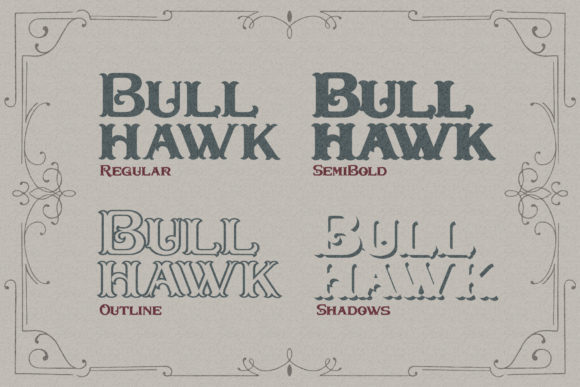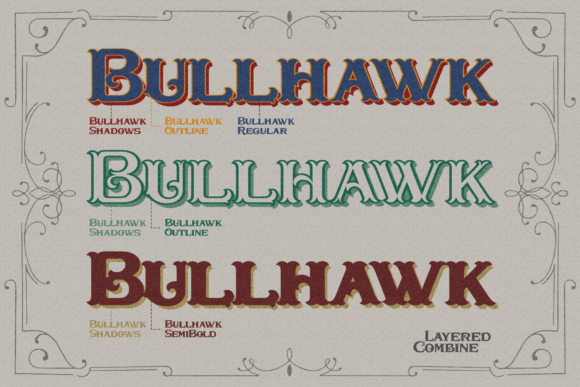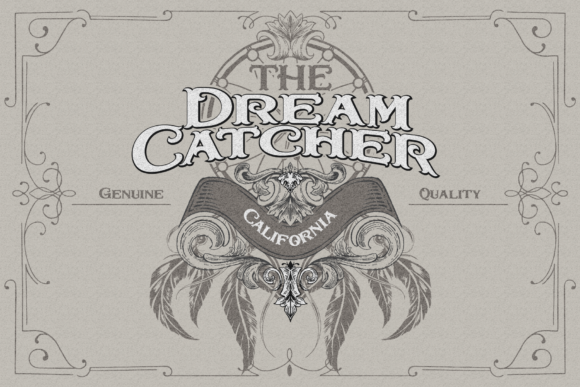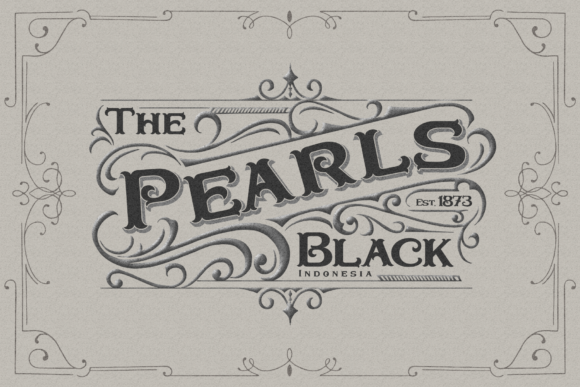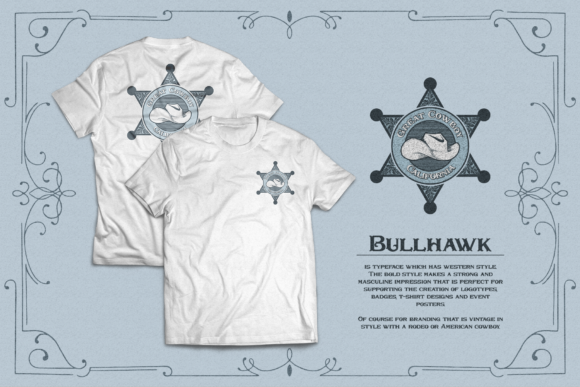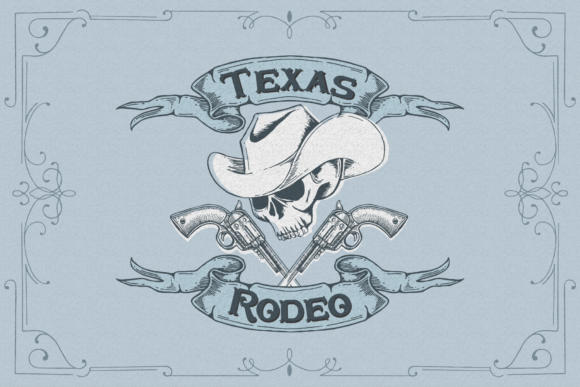
Bullhawk Font: Unleash the Wild West in Your Designs
Bullhawk is a beautifully lettered display font with a unique style that’s sure to add a touch of the Wild West to your designs. With its rugged, bold, and adventurous feel, this font is perfect for designers and crafters looking to create eye-catching projects that evoke the spirit of the American frontier.
The Unique Western Feel of Bullhawk Font
Bullhawk Font boasts a distinctive Western feel that’s hard to find in modern typography. Its letters are carefully crafted to resemble the rough-riding, free-spirited nature of the Wild West. The font’s unique style is characterized by its bold lines, rugged edges, and a hint of vintage flair. Whether you’re designing a logo, poster, or packaging, Bullhawk Font is sure to add a touch of authenticity to your project.
What Makes Bullhawk Font Special?
So, what sets Bullhawk Font apart from other display fonts on the market? Here are a few features that make it a standout:
- Unique lettering style: Bullhawk Font features a one-of-a-kind lettering style that’s both bold and elegant. Its letters are carefully crafted to create a sense of movement and energy.
- Western-inspired design: The font’s Western feel is unmistakable, making it perfect for designs that require a touch of the Wild West.
- High-quality design: Bullhawk Font is designed with high-quality craftsmanship in mind. Its lines are smooth, and its edges are crisp, making it perfect for both digital and print applications.
How to Use Bullhawk Font in Your Designs
Bullhawk Font is an incredibly versatile font that can be used in a variety of design applications. Here are a few ideas to get you started:
- Logos and branding: Use Bullhawk Font to create a bold, eye-catching logo that evokes the spirit of the Wild West.
- Posters and flyers: Add a touch of Western flair to your posters and flyers with Bullhawk Font.
- Packaging design: Use Bullhawk Font to create unique and eye-catching packaging that stands out on store shelves.
- Digital design: Bullhawk Font is perfect for digital applications, such as social media graphics, website headers, and more.
Tips for Getting the Most Out of Bullhawk Font
To get the most out of Bullhawk Font, here are a few tips to keep in mind:
- Experiment with different colors: Bullhawk Font looks great in a variety of colors, from bold and bright to muted and earthy.
- Play with font sizes: Bullhawk Font is designed to be versatile, so don’t be afraid to experiment with different font sizes to create visual interest.
- Combine with other fonts: Bullhawk Font pairs well with a variety of other fonts, so feel free to get creative and experiment with different font combinations.
Bullhawk Font is a beautifully lettered display font with a unique Western feel that’s sure to add a touch of the Wild West to your designs. With its rugged, bold, and adventurous style, this font is perfect for designers and crafters looking to create eye-catching projects that evoke the spirit of the American frontier. Whether you’re designing a logo, poster, or packaging, Bullhawk Font is sure to inspire your creativity and help you create something truly special.
Get Inspired by Bullhawk Font